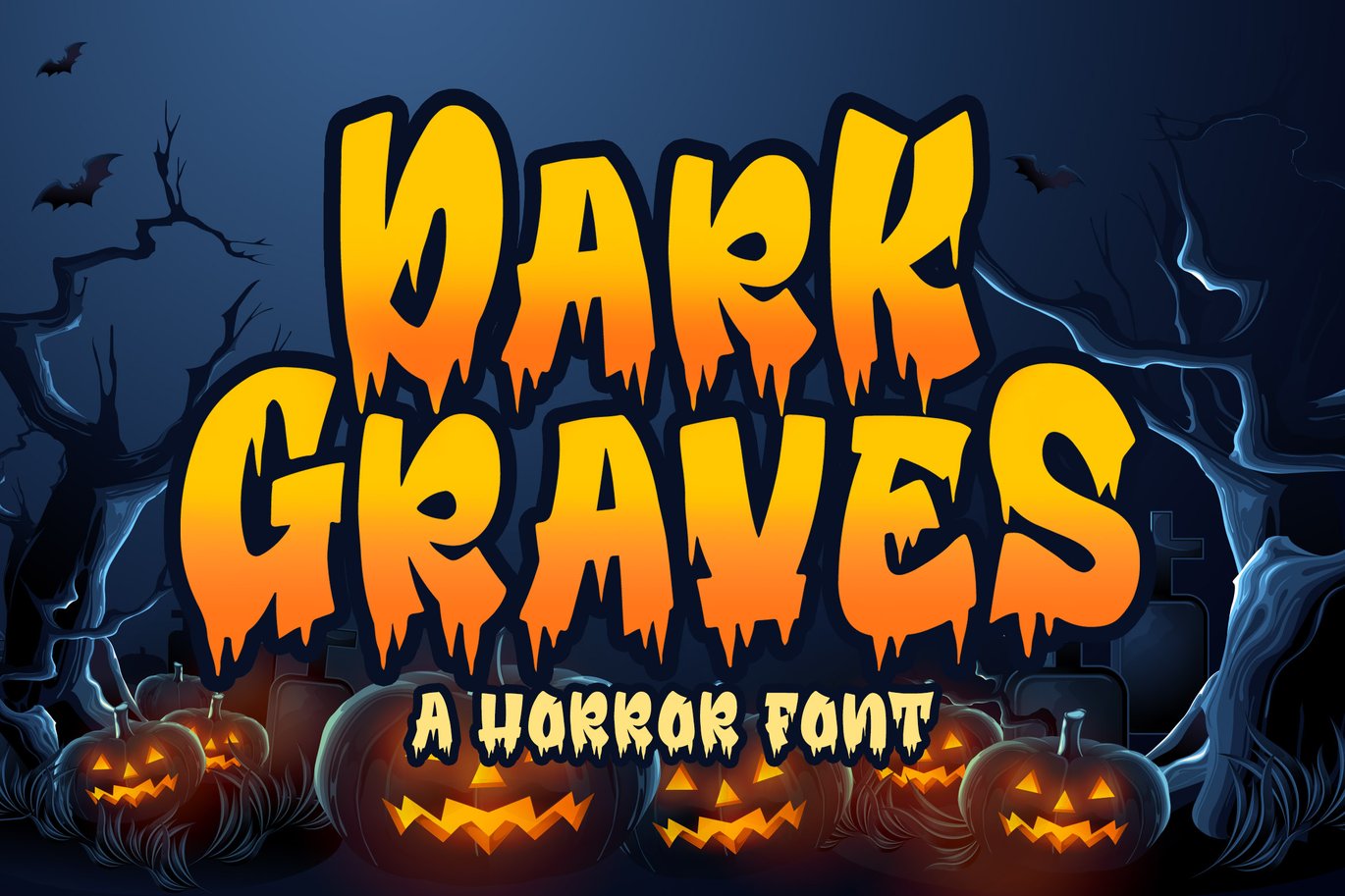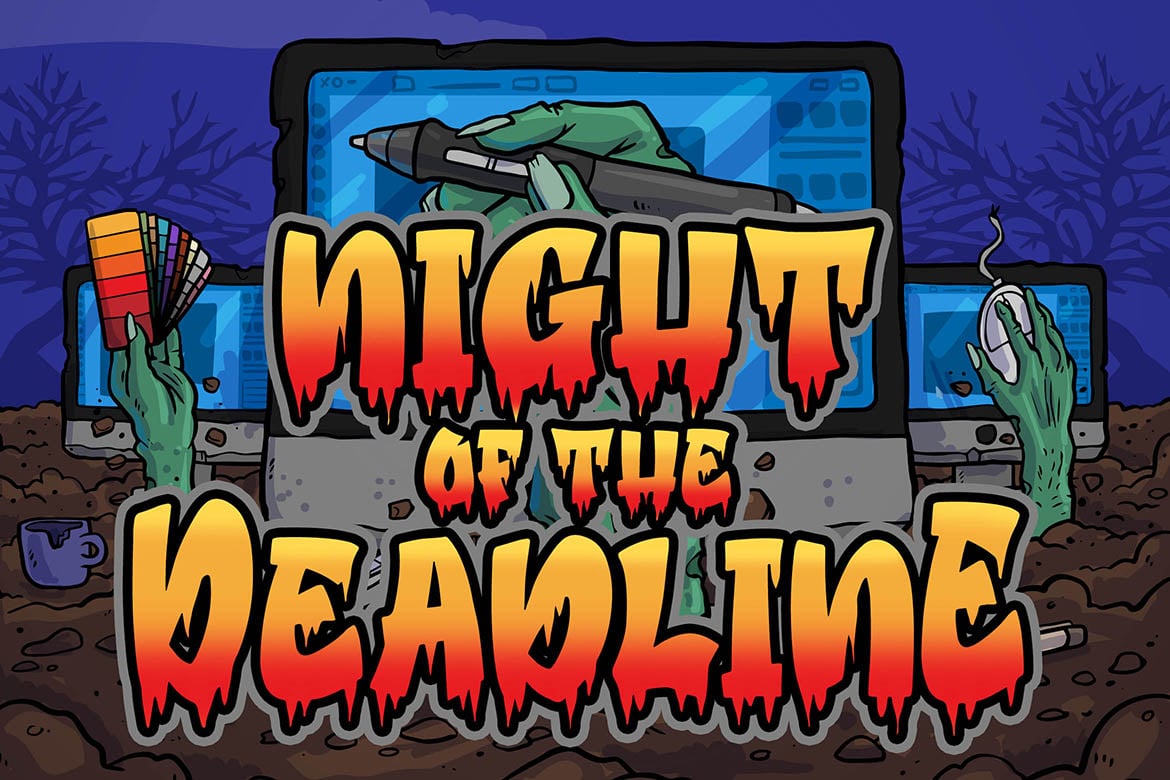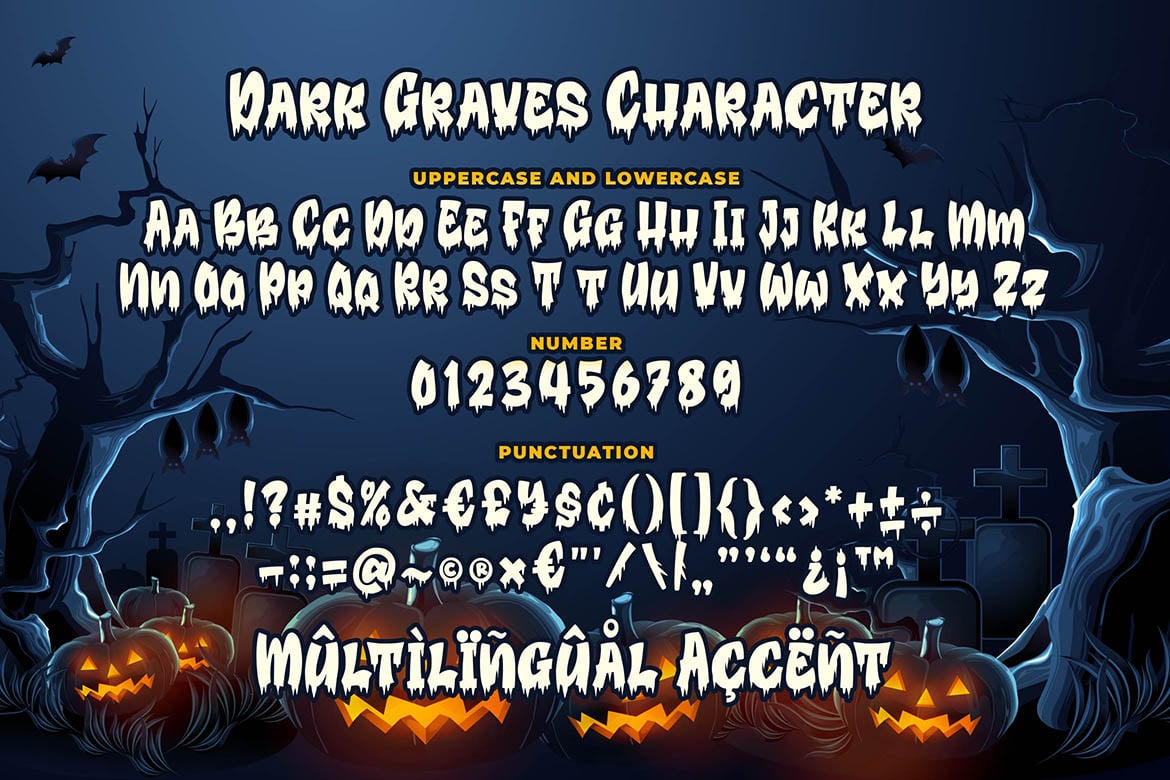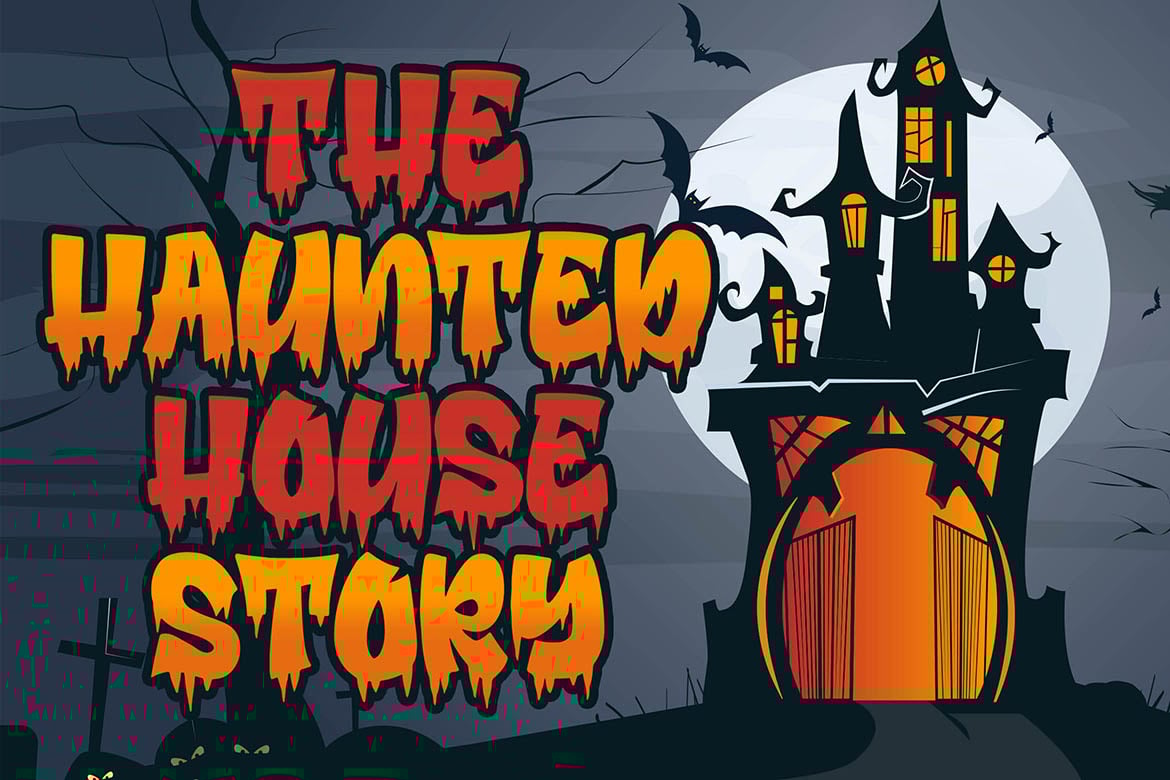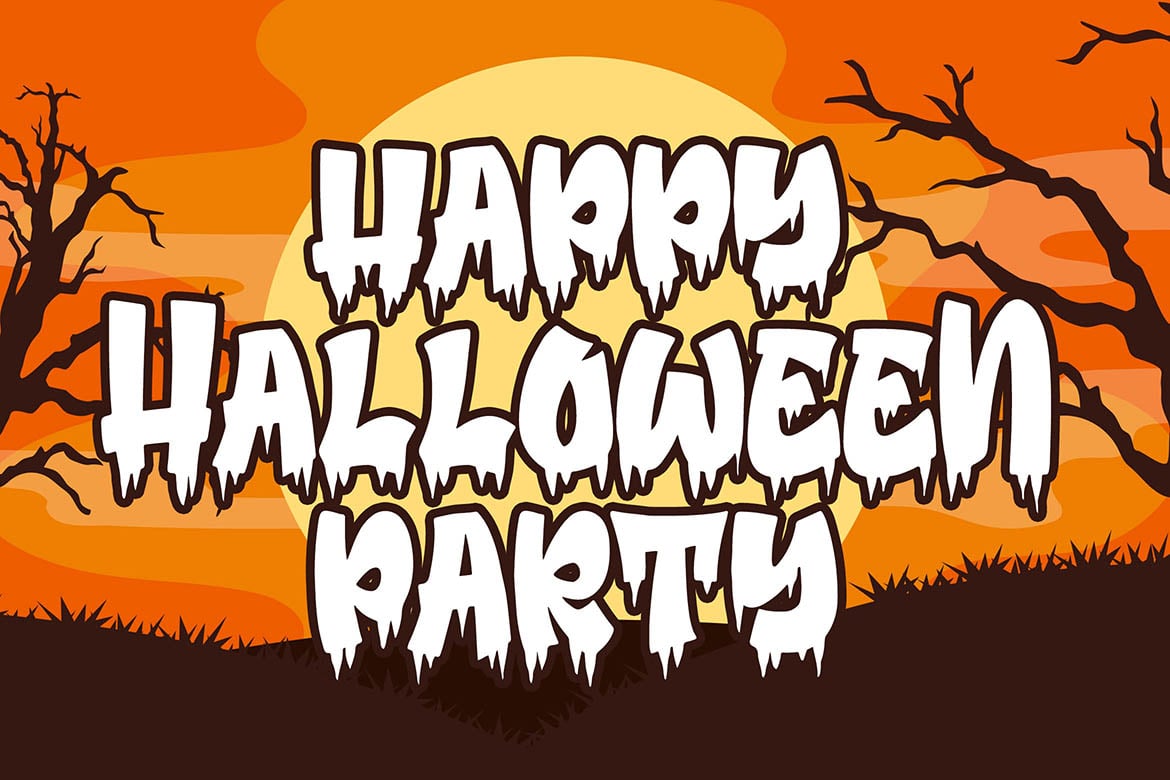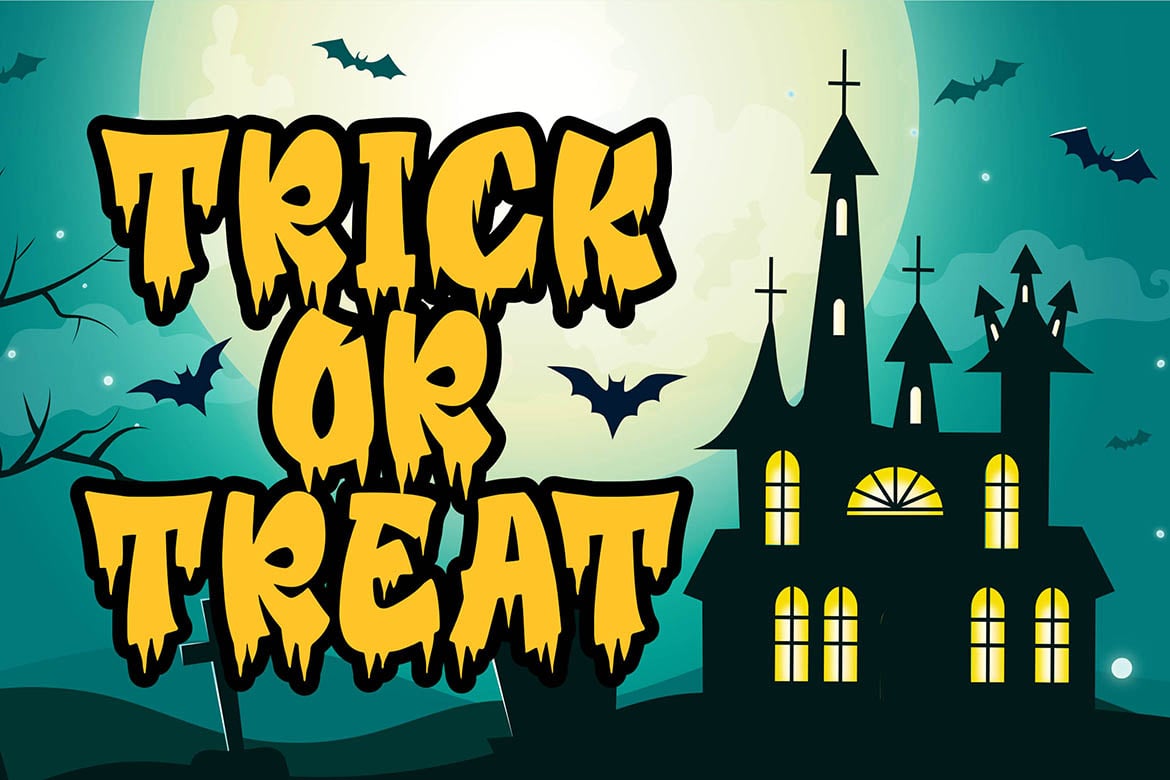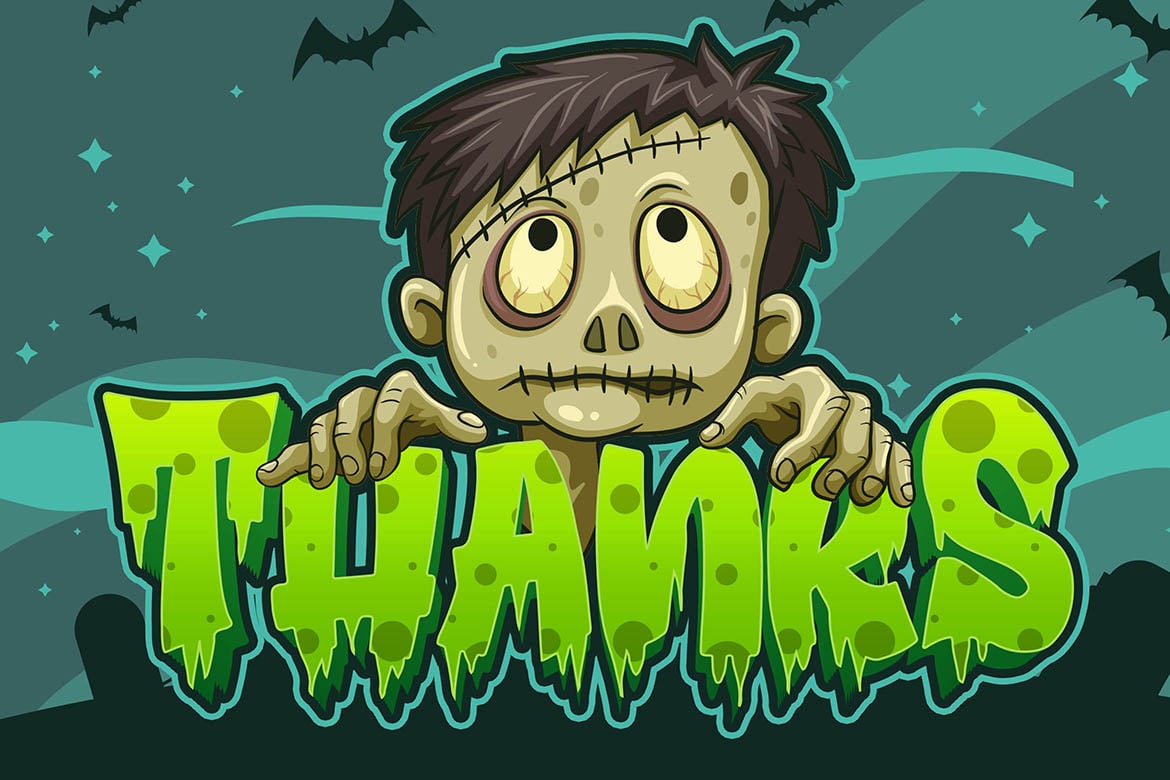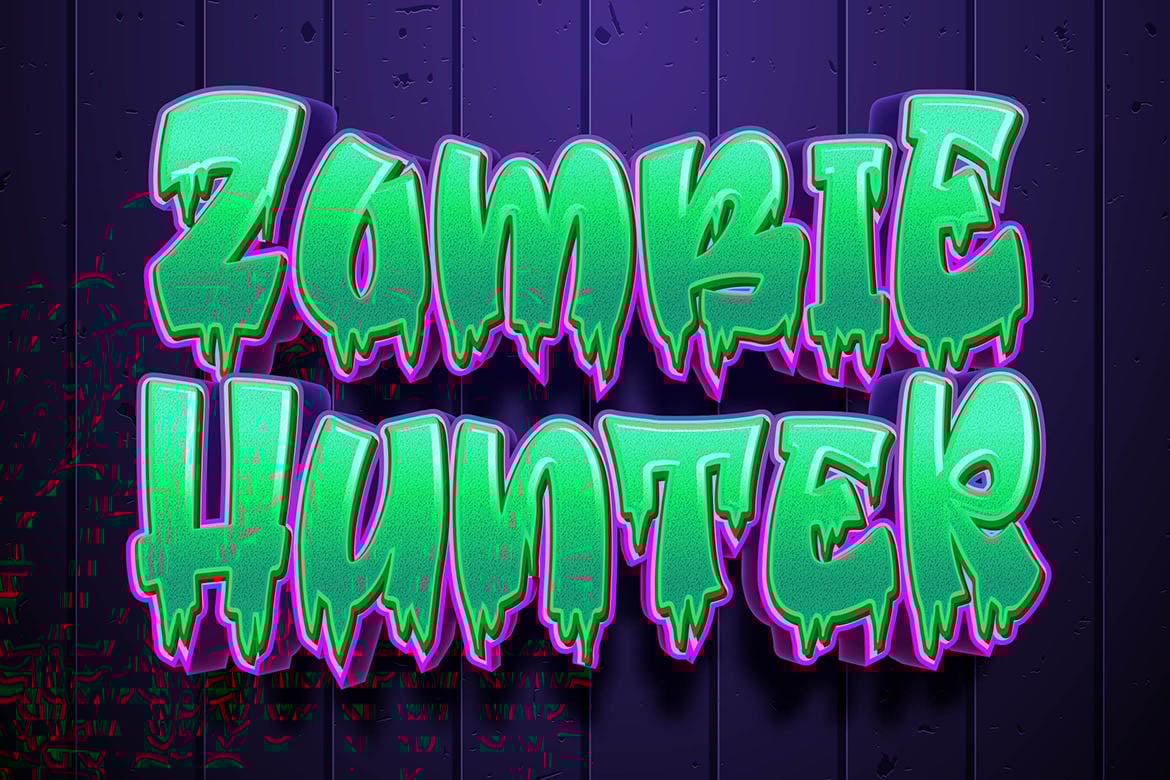
Dark Graves – a Horror Font
Introducing of our new product the name is Dark Graves a Horror Font. Dark Graves inspired by horror style this font is a fun theme very good for halloween, book cover, poster, apparel, clothing, logotype and etc
MULTILINGUAL ACCENT :
ØÆøæ¢ÐŒœÁĂÂÀÄĄÅÃǼĆČÇĈĊĎÉĔĚÊËĖÈĘĞĜĢĠĤÍĬÎÏİÌĮĨĴĶĹĽĻĿŃŇŅÑÓŎÔÖÒŐǾÕŔŘŖŚŠŞŜȘŤŢÚŬÛÜÙŰŲŮŨẂŴẄẀÝŶŸỲŹŽŻáăâäàąåãǽćčçĉċďéĕěêëėèęğĝģġĥíîïìįĩĵķĺľļŀńʼnňņñóŏôöòőǿõŕřŗśšşŝșťţŭûüűùųůũẃŵẅẁýŷÿỳźžż